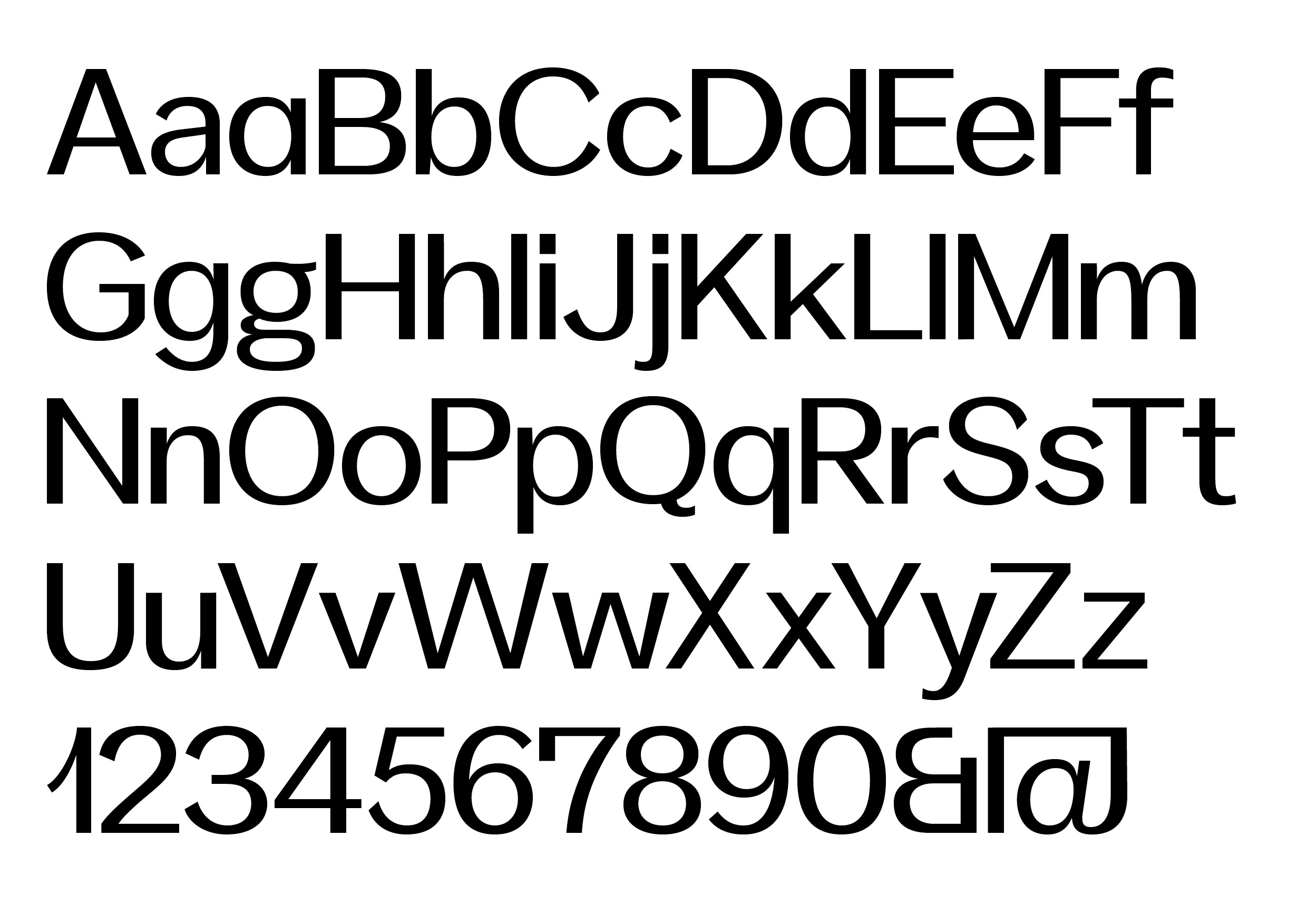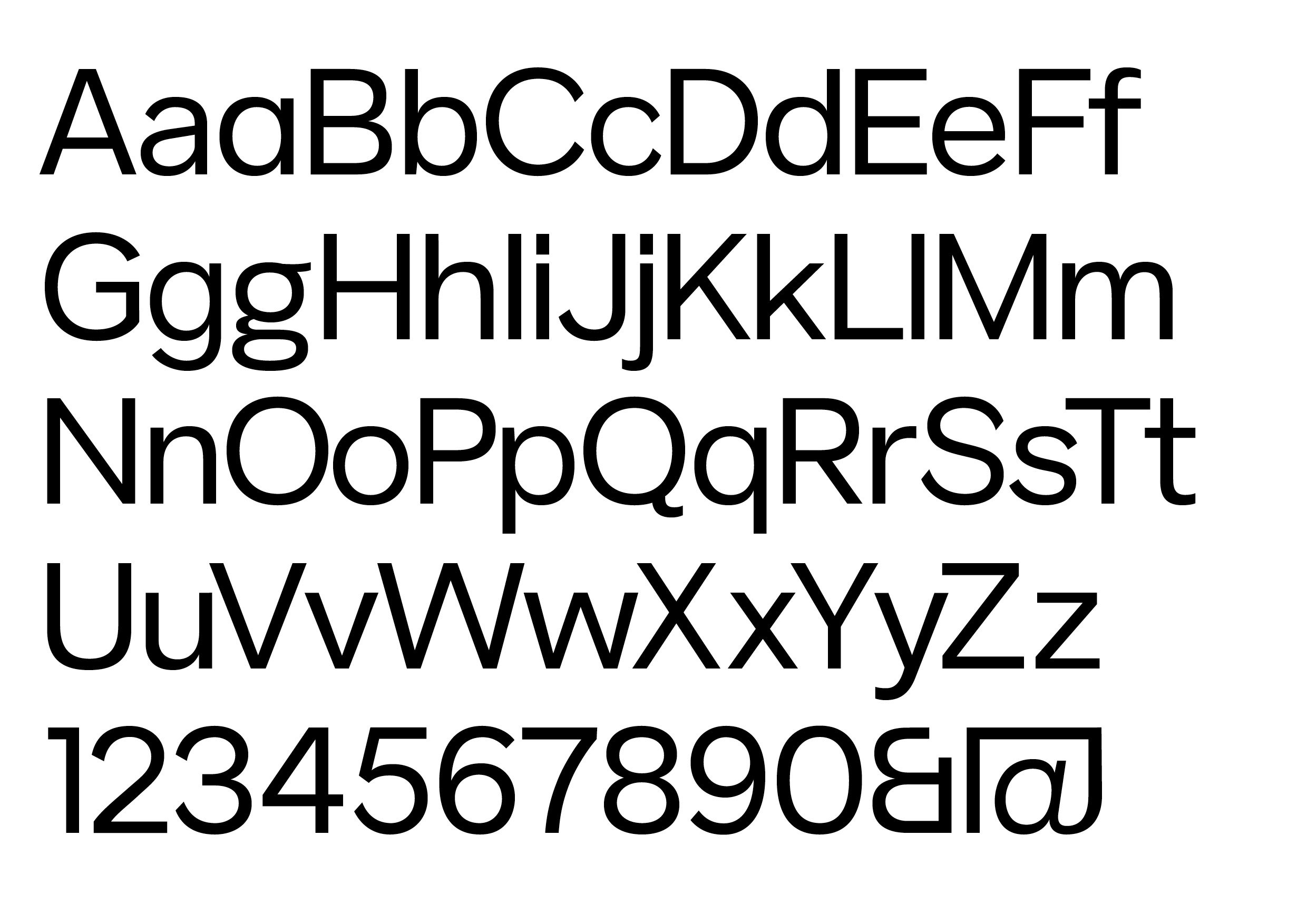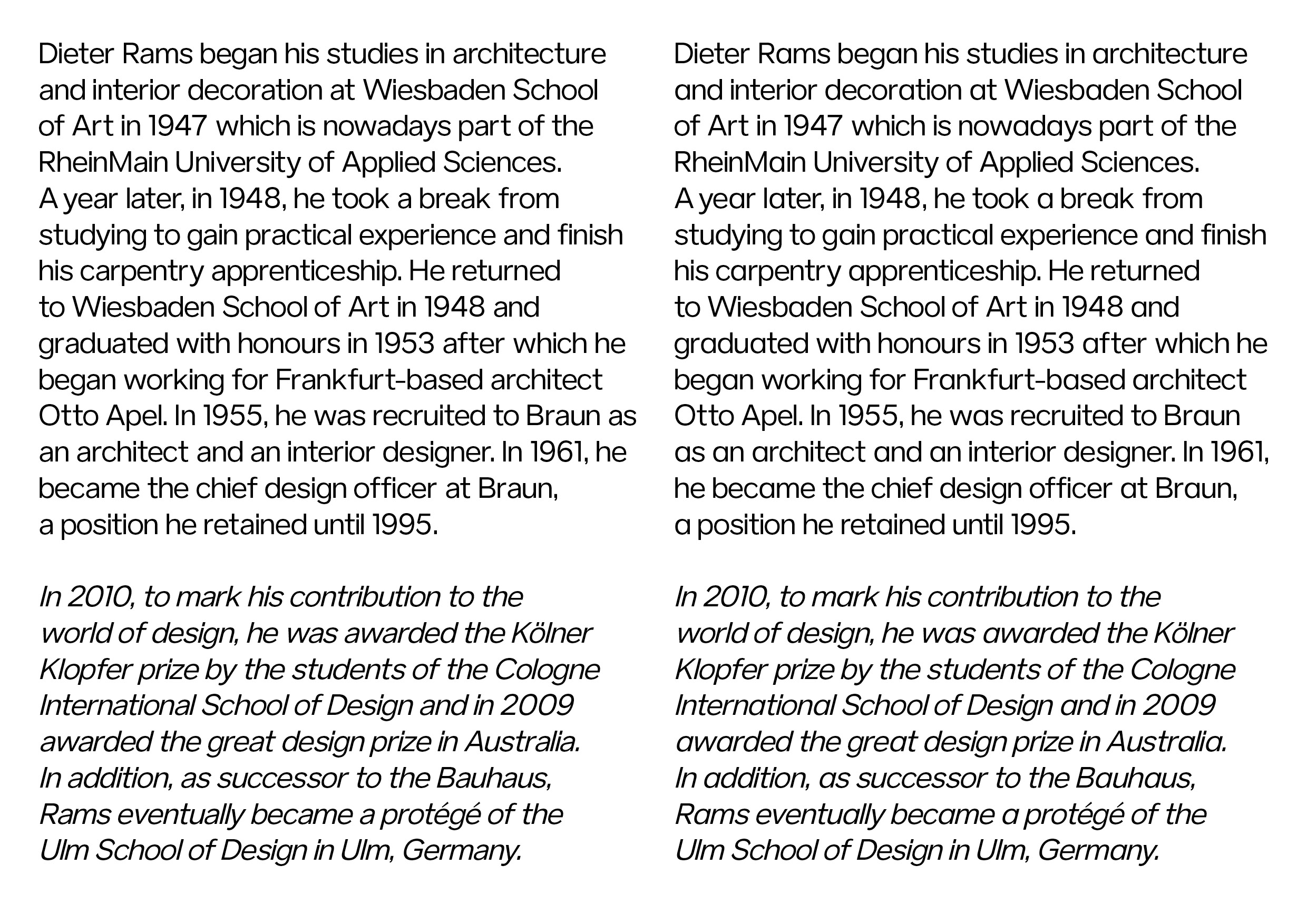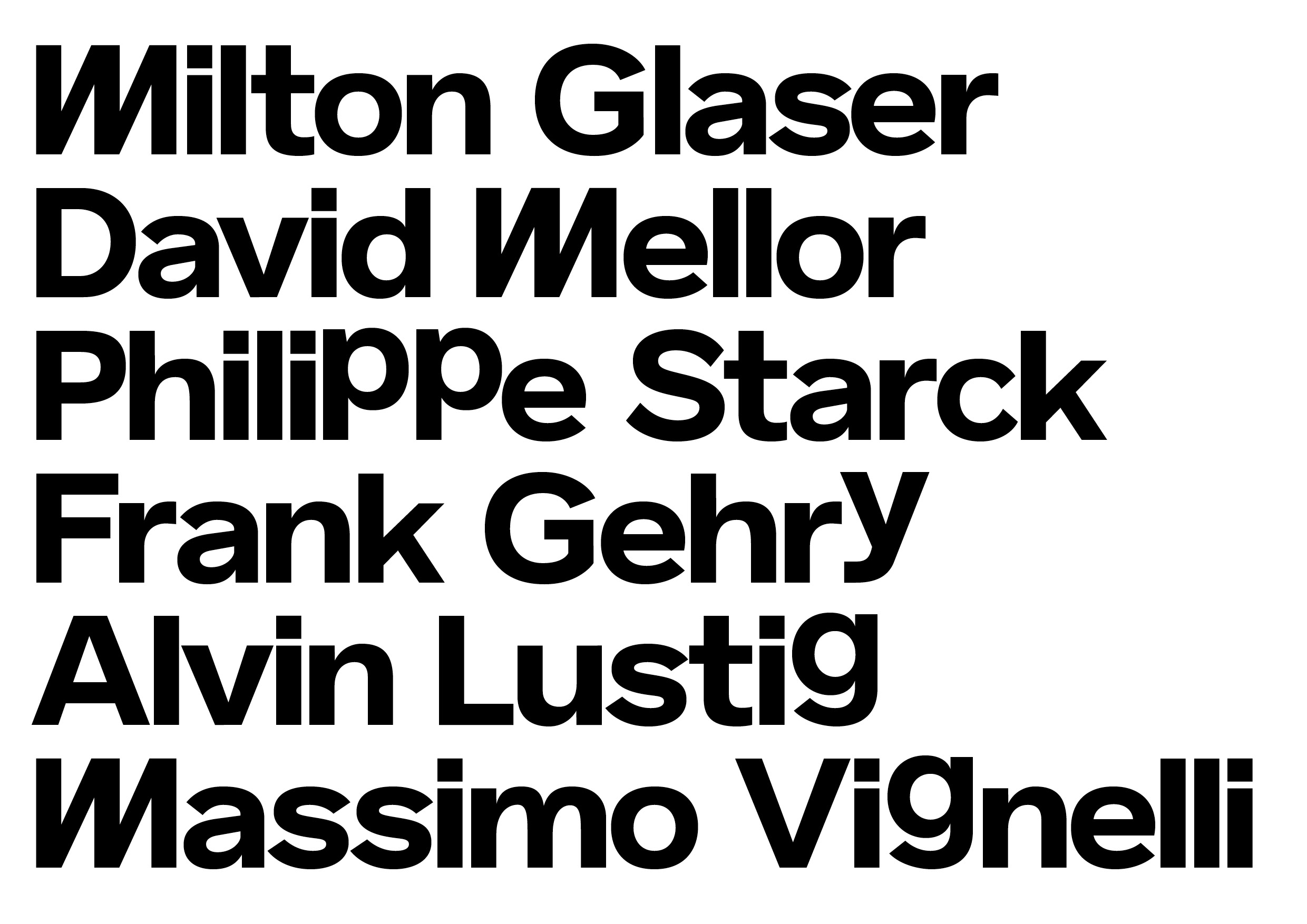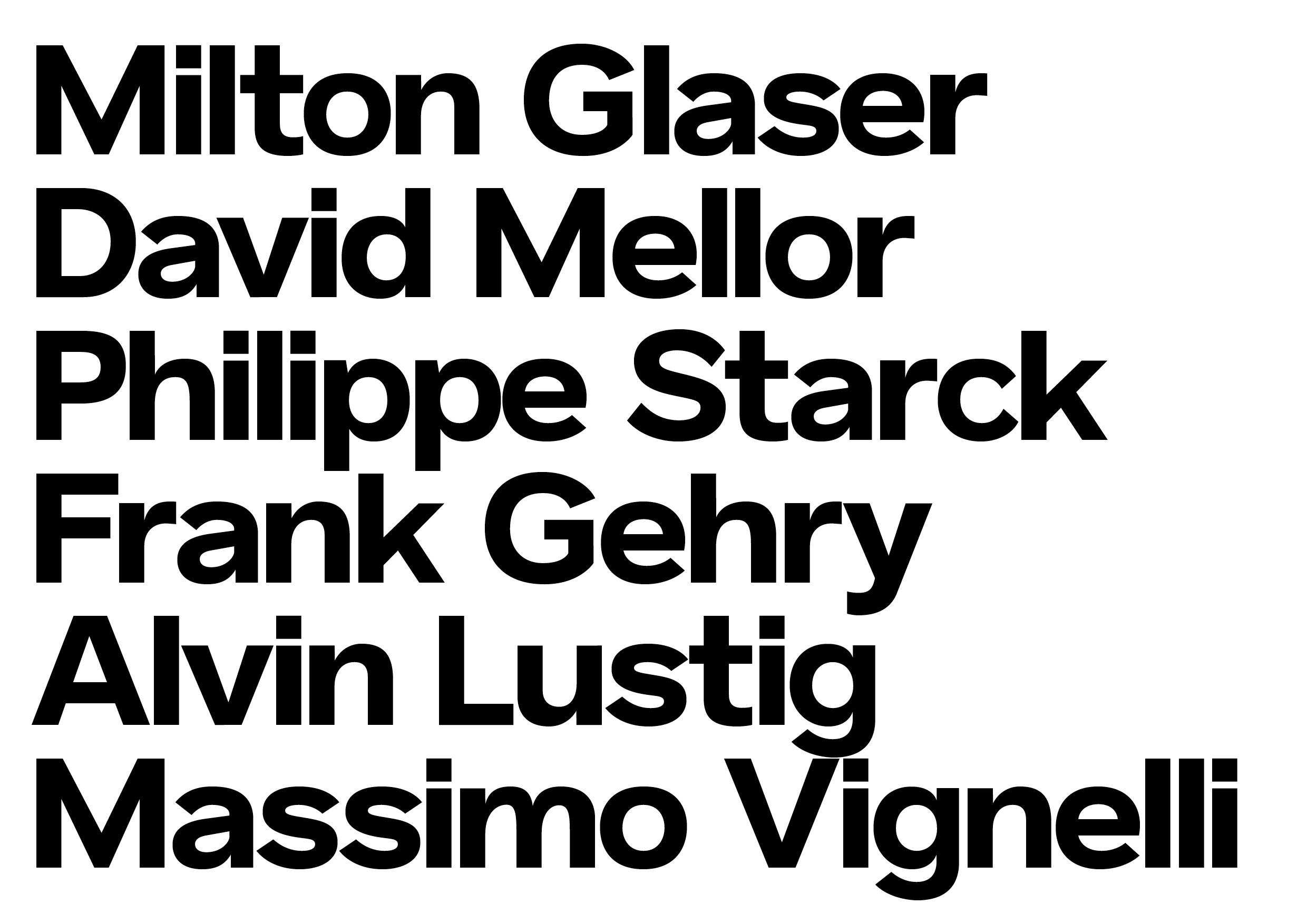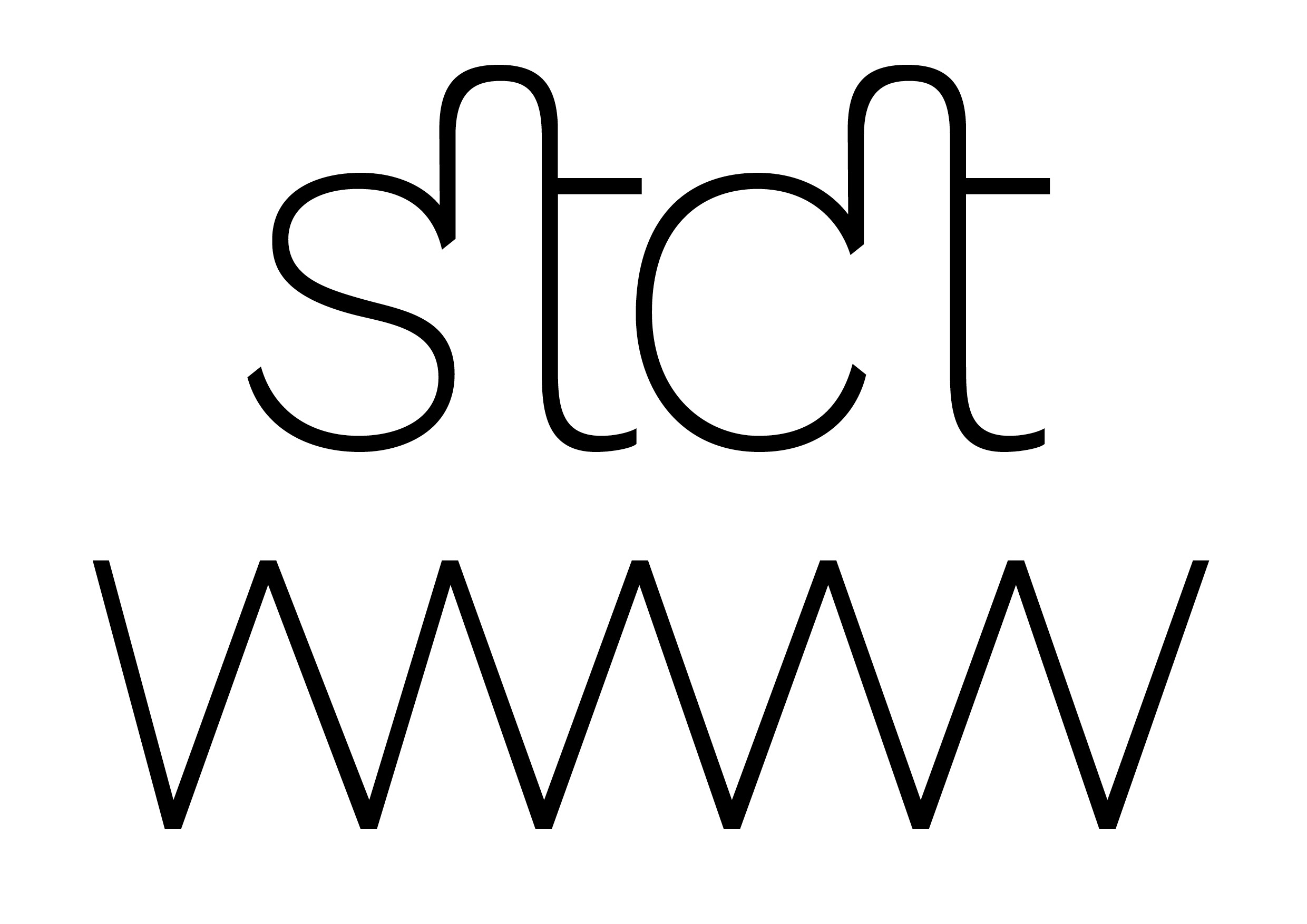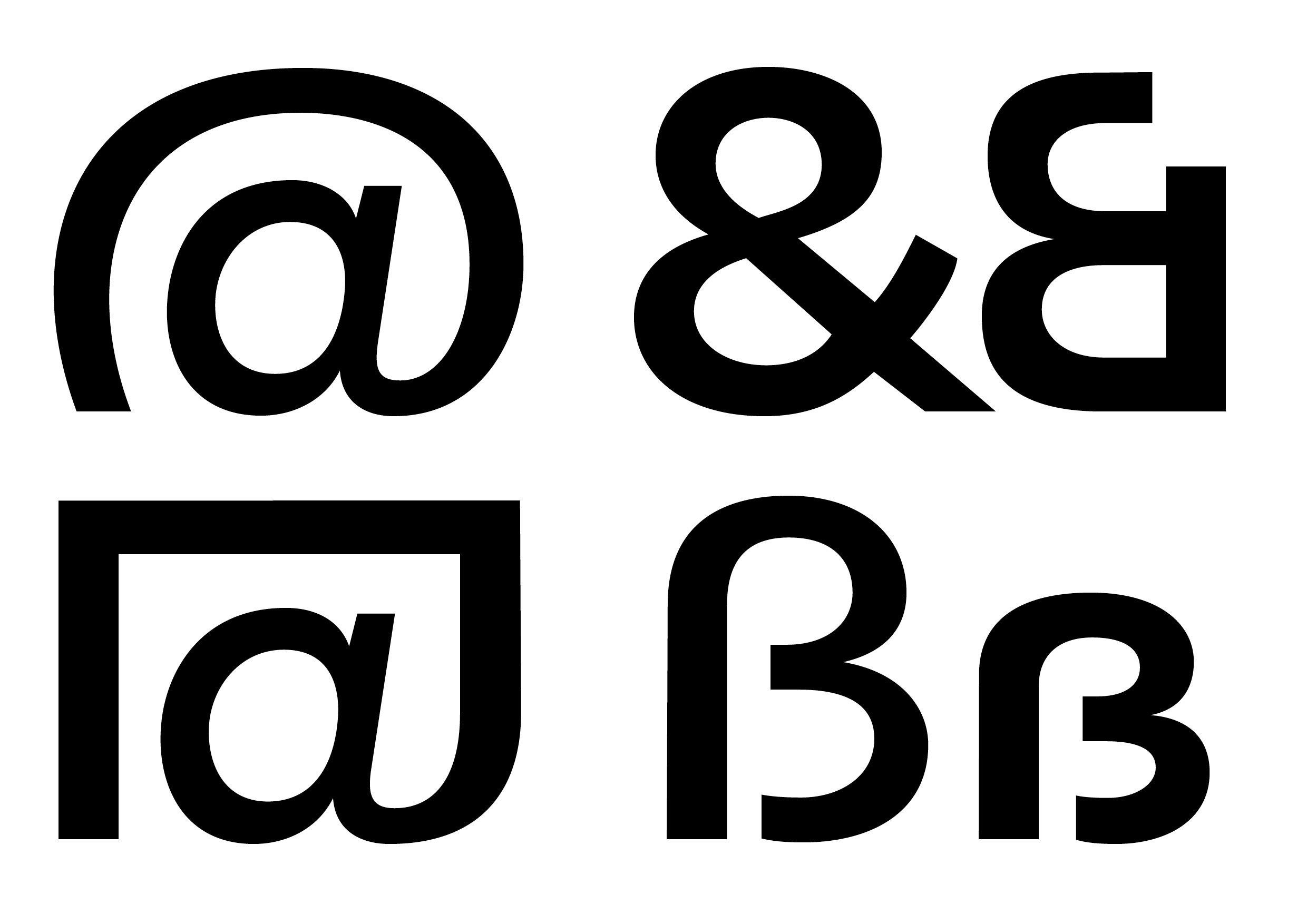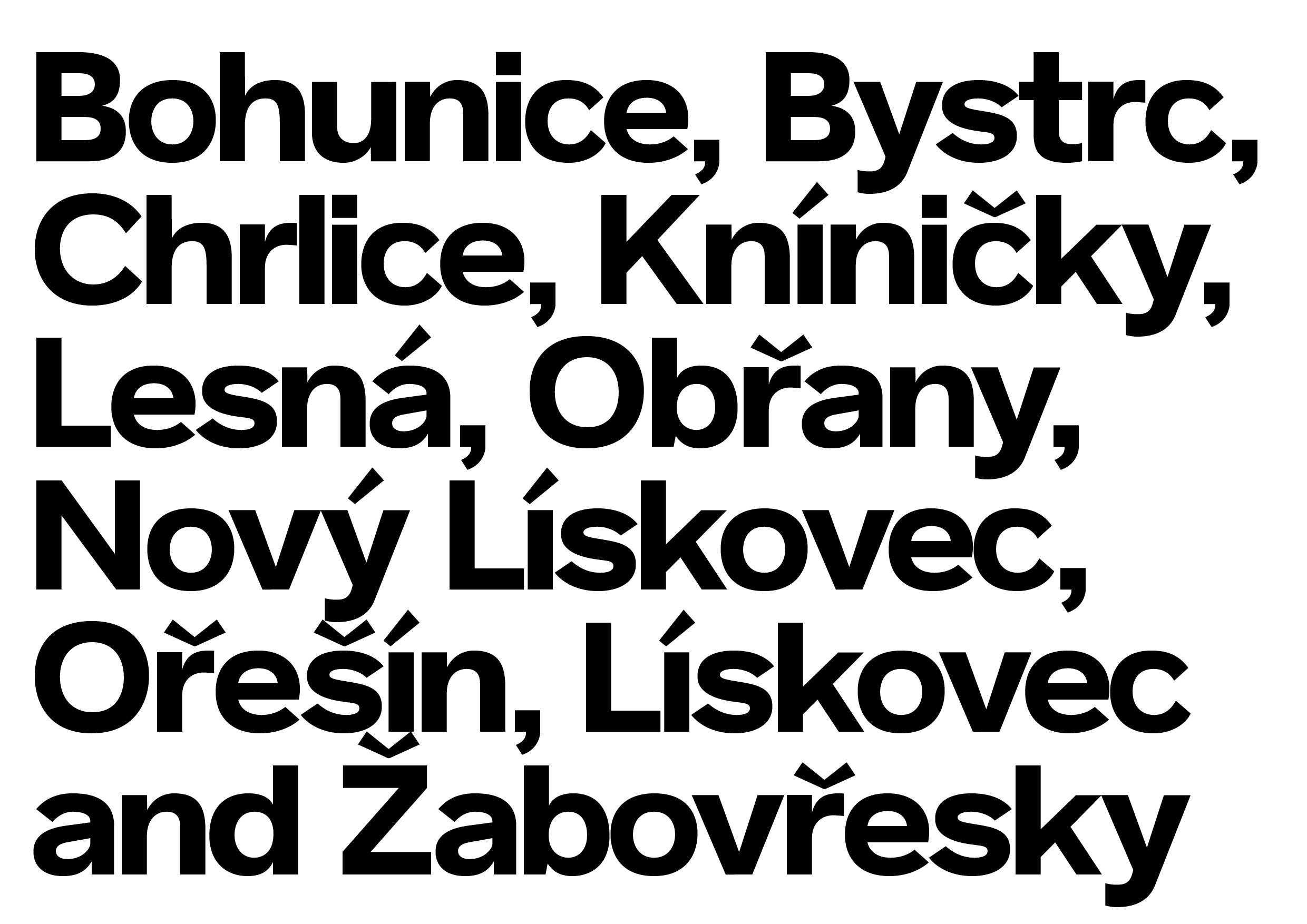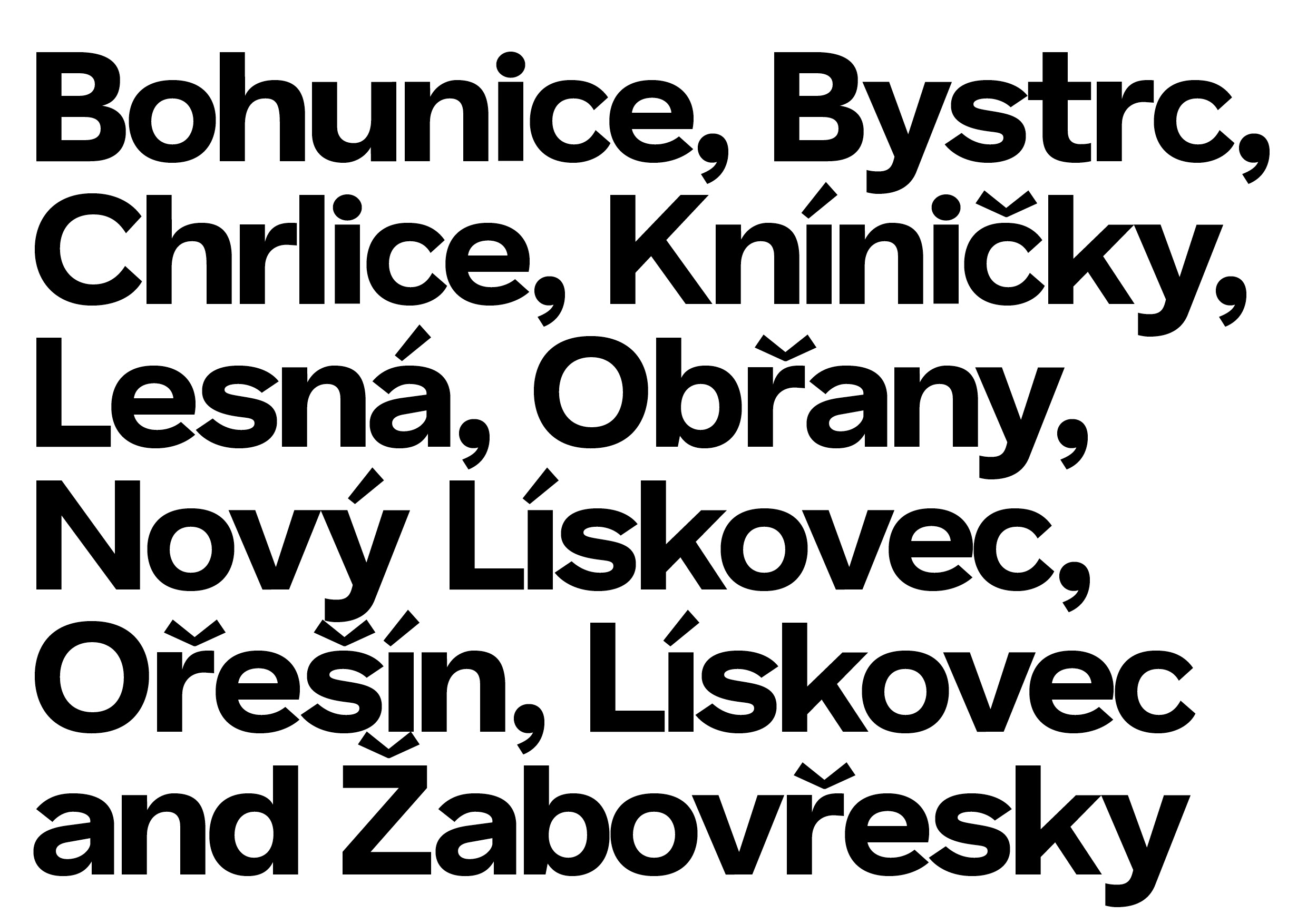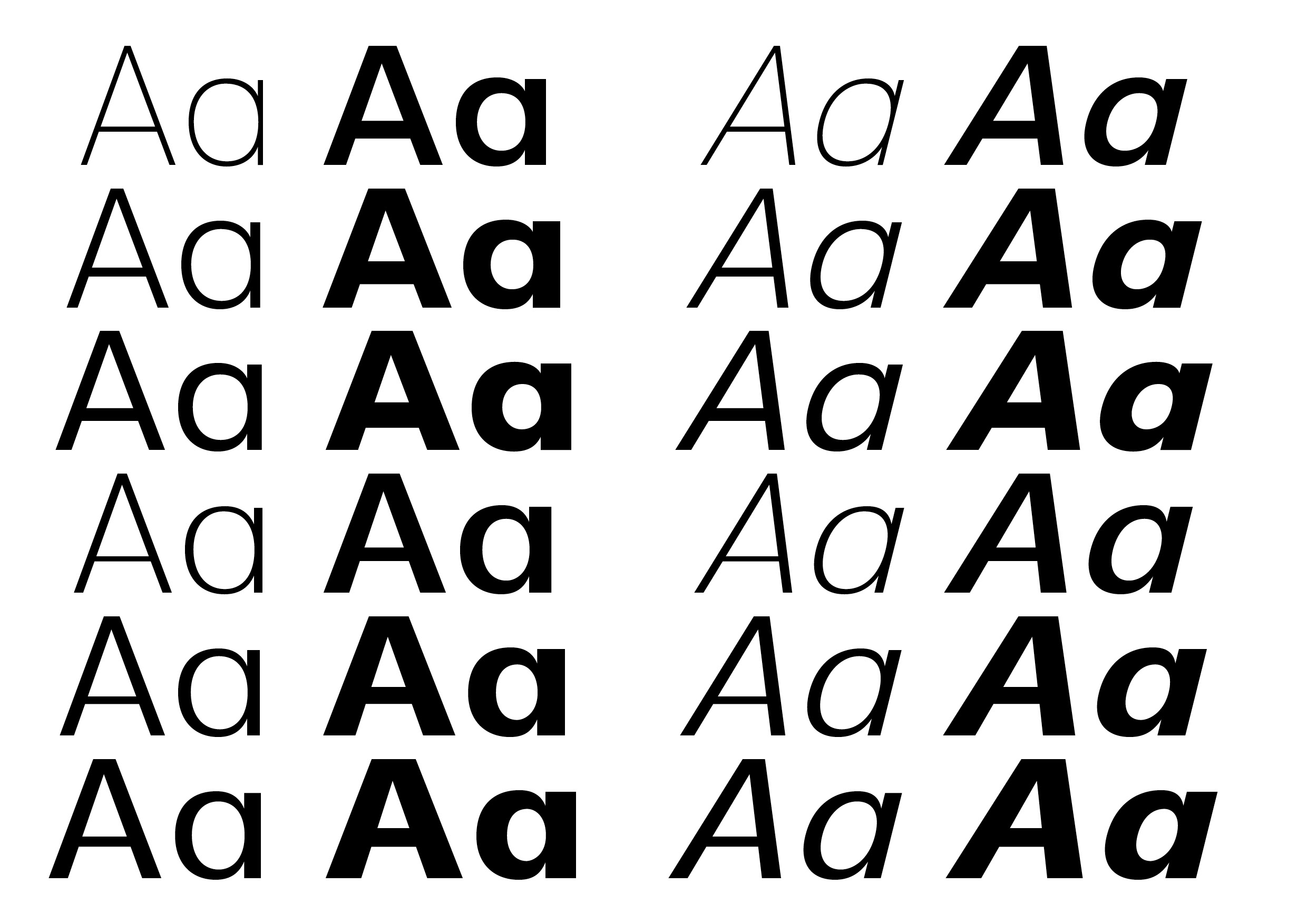
Ordinary Sans
Ordinary Sans is a typeface inspired by the quiet beauty of everyday routines and objects. Designed for extensive use, it reveals subtle character variations over time, much like the details you begin to notice when something becomes part of daily life. With clean, balanced proportions, it embraces simplicity and clarity, letting delicate nuances unfold with use. Ordinary Sans captures the essence of familiarity while inviting discovery of the hidden beauty within the ordinary. A modern sans serif with a geometric touch, it was created as a companion to the Everyday Sans family. Offering 12 weights with matching italics, it provides ample flexibility for any design need. Use the bold Display weights to make a statement at large scales, or rely on the refined text weights for clarity in smaller settings. Across its range, Ordinary Sans delivers legibility and versatility without losing its distinct charm.